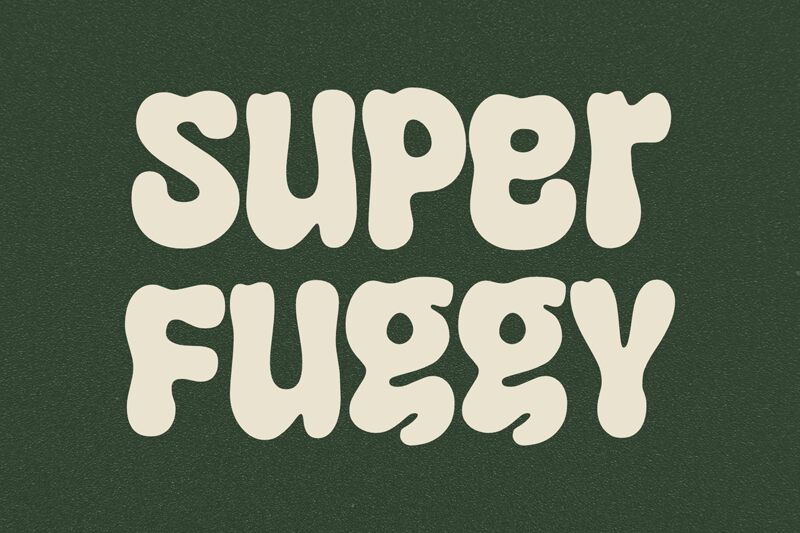
Super Fuggy
Super Fuggy is a groovy display font created by fsuarez913. With its bold weight and retro-inspired style, this font is perfect for a wide range of creative projects. Its whimsical and playful design makes it ideal for children's book covers, party invitations, and poster designs. The boldness of Super Fuggy adds impact to branding materials such as logos and packaging labels. Whether you're working on a funky fashion campaign or designing an eye-catching website, this font will bring a touch of fun and nostalgia to any project. Let your creativity shine with Super Fuggy!